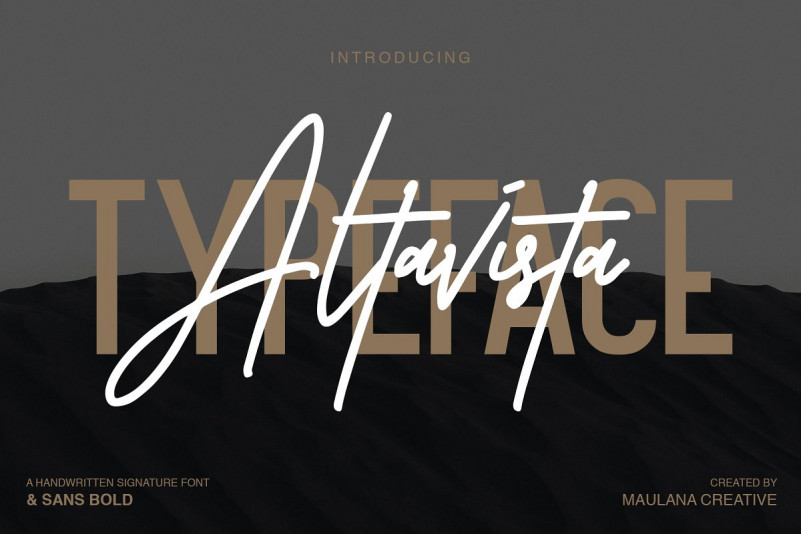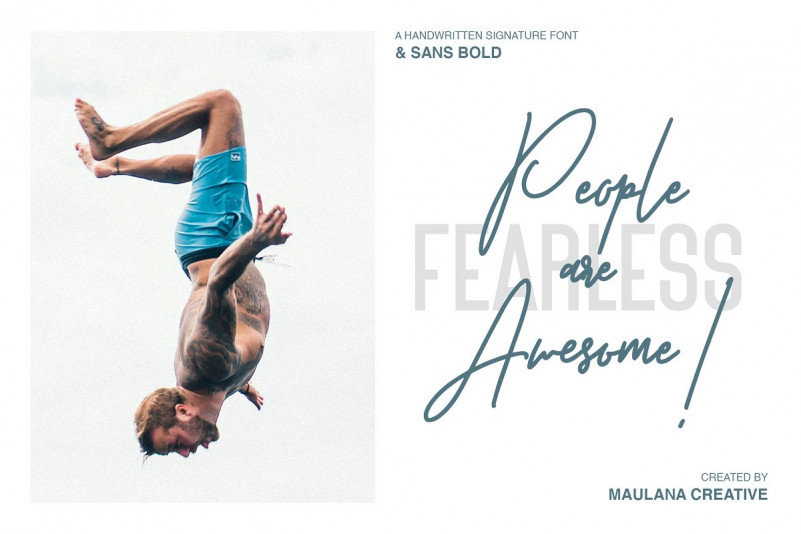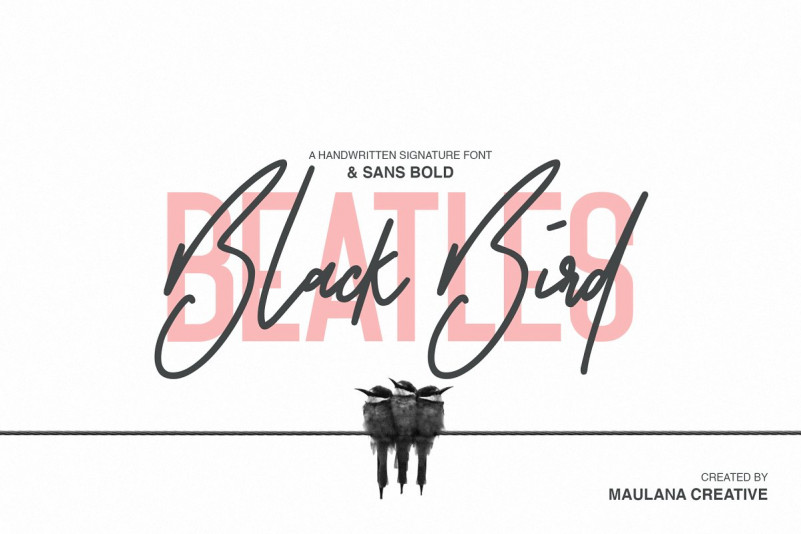
Altavista Font
Give your designs an authentic brush handcrafted feel. “Altavista” is perfectly suited to signature, stationery, logo, typography quotes, magazine or book cover, website header, flyer, clothing, branding, packaging design and more.